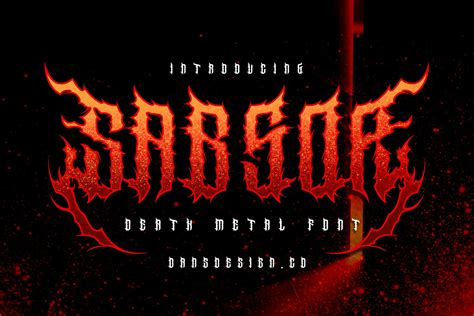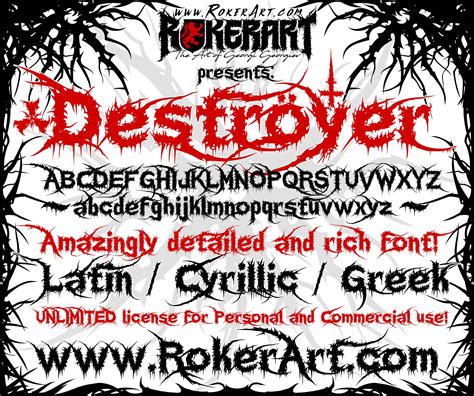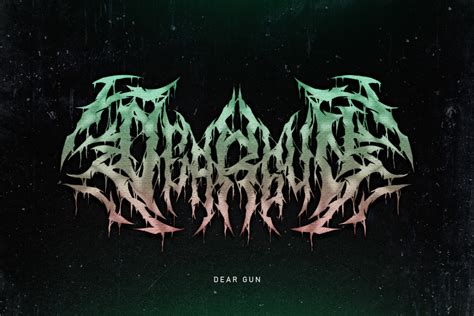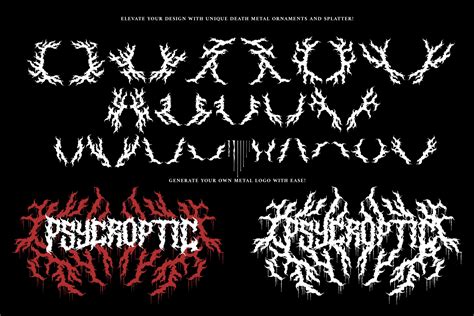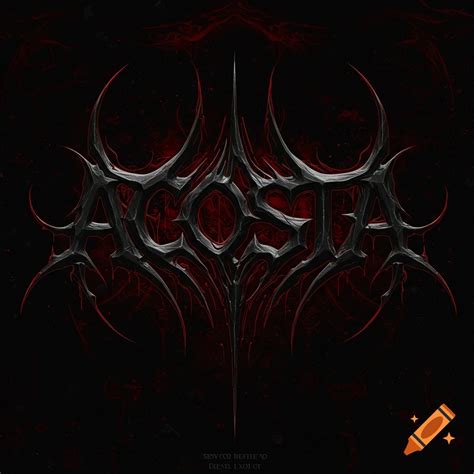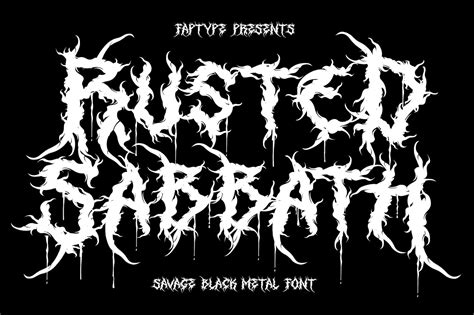
In the realm of graphic design and typography, the choice of font can significantly impact the overall aesthetic and mood of a project. For those seeking to evoke a sense of darkness, intensity, and raw power, a Death Metal Font is an excellent choice. These fonts are inspired by the heavy metal genre, particularly death metal, and are characterized by their bold, aggressive, and often gory designs. They are perfect for creating posters, album covers, logos, and other graphic elements that require a strong, edgy look.
Understanding Death Metal Fonts
Death Metal Fonts are more than just typography; they are a statement. They often feature sharp, jagged edges, intricate details, and sometimes even elements of horror or the macabre. These fonts are designed to capture the essence of death metal music, which is known for its heavy, distorted guitars, growling vocals, and dark, often violent themes.
When choosing a Death Metal Font, it's important to consider the context in which it will be used. These fonts are best suited for projects that aim to convey a sense of intensity and aggression. They are less appropriate for more subdued or professional settings, where a cleaner, more traditional font might be more suitable.
Popular Death Metal Fonts
There are numerous Death Metal Fonts available, each with its unique style and characteristics. Here are some of the most popular ones:
- Bloodlust: This font features sharp, jagged edges and a gory design, making it perfect for horror-themed projects.
- Death Metal: As the name suggests, this font is inspired by the death metal genre and features bold, aggressive lettering.
- Gore: This font is characterized by its intricate, gory details and is perfect for projects that require a high level of detail.
- Skullcrusher: This font features sharp, angular lettering and is perfect for projects that require a strong, edgy look.
- Darkness: This font is characterized by its bold, aggressive lettering and is perfect for projects that require a sense of intensity and aggression.
How to Use Death Metal Fonts
Using a Death Metal Font effectively requires a good understanding of typography and design principles. Here are some tips to help you get started:
- Choose the Right Font: Select a font that matches the mood and theme of your project. For example, if you're designing a horror-themed poster, a font like Bloodlust might be more appropriate than a font like Darkness.
- Consider the Size: Death Metal Fonts are often bold and aggressive, so it's important to consider the size of the text. Large text can be overwhelming, while small text might be difficult to read.
- Use Contrast: To make your text stand out, use contrast. This can be achieved by using a light background with dark text or vice versa. You can also use contrasting colors to create a striking effect.
- Experiment with Effects: Death Metal Fonts often look best with added effects. Consider using drop shadows, outlines, or textures to enhance the overall look of your text.
Designing with Death Metal Fonts
When designing with Death Metal Fonts, it's important to consider the overall aesthetic of your project. These fonts are best used in projects that require a strong, edgy look. Here are some design tips to help you get started:
- Keep It Simple: Death Metal Fonts are often bold and aggressive, so it's important to keep the rest of your design simple. Avoid cluttering your design with too many elements.
- Use High-Quality Images: If you're using images in your design, make sure they are high-quality. This will help ensure that your design looks professional and polished.
- Consider the Color Scheme: The color scheme of your design can greatly impact the overall look and feel. Choose colors that complement your font and enhance the mood of your project.
- Use White Space: White space can help balance out the boldness of Death Metal Fonts. Use it to create a sense of harmony and balance in your design.
Creating a Death Metal Font
If you're feeling adventurous, you can even create your own Death Metal Font. This process involves several steps, including sketching, digitizing, and refining your design. Here's a basic overview of the process:
- Sketch Your Design: Start by sketching your design on paper. This will give you a rough idea of how your font will look.
- Digitize Your Design: Use a vector graphics program like Adobe Illustrator or Inkscape to digitize your design. This will allow you to create a clean, scalable version of your font.
- Refine Your Design: Once you've digitized your design, refine it by adjusting the curves, lines, and details. This will help ensure that your font looks polished and professional.
- Test Your Font: Before finalizing your design, test it out in different sizes and contexts. This will help you identify any issues and make necessary adjustments.
💡 Note: Creating a Death Metal Font requires a good understanding of typography and design principles. If you're new to font design, consider starting with simpler projects before tackling a Death Metal Font.